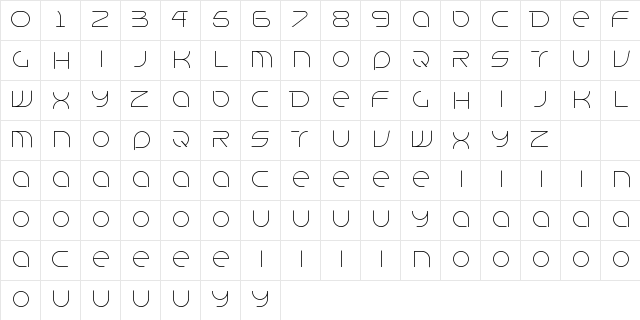
Deras Demo Light Regular Font Preview
Deras Demo Light Regular
| Foundry | EvanoStudio |
| Designer | Kiki Fitriani |
Design Context for Deras Demo Light Typeface
Deras Demo Light is a composed and adaptable typeface that performs quietly and consistently across a wide range of design contexts. The delicate stroke weight brings airiness and refinement to layouts.